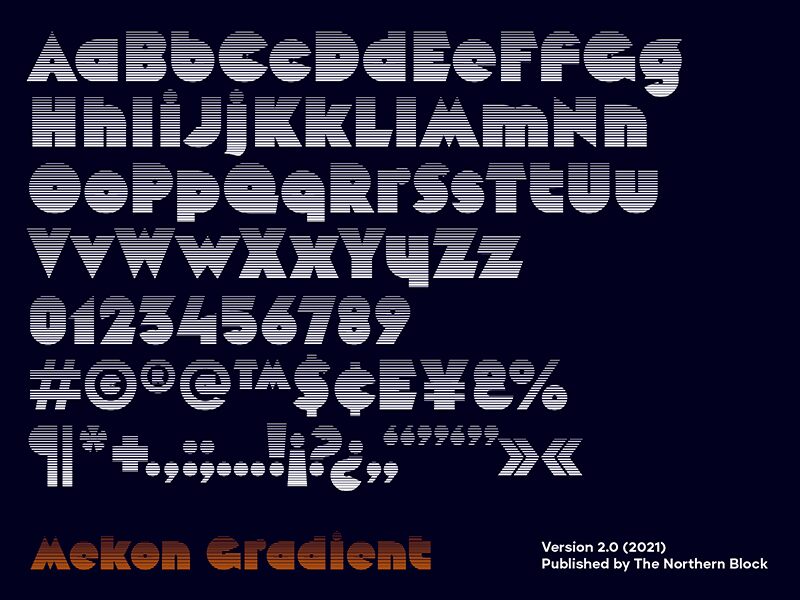
Mekon Gradient font by The Northern Block is a bold display typeface that channels a retro aesthetic with modern flair. Inspired by Peter Steiners' Black Body (1973), its Pacman-like shapes paired with keyhole counters provide a playful yet striking visual element.
This heavyweight font stands out in apparel, book covers, t-shirts, and posters. Version 2.0 enhances its appeal with higher technical standards for contemporary design needs.
Mekon is a modern heavyweight typeface digitised and expanded from Peter Steiners Black Body (1973). Retro style Pacman shapes are combined with small keyhole counters to create a bold and witty font ideal for apparel, books, t-shirts and posters. Included in the font are over 460 characters, four unique styles, with a free gradient option. Opentype features consist of digital numerals, fractions and alternate a, c, e, f, i, k, m, n, r, M and S with language support covering Western, South and Central Europe.